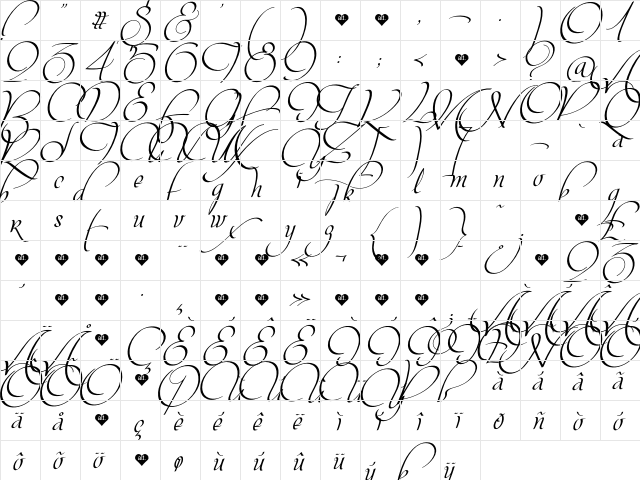
Mon Amour Script Alt Regular
| Foundry | Maximiliano R. Sproviero |
| Designer | Maximiliano R. Sproviero |
Design Context for Mon Amour Script Alt Typeface
Mon Amour Script Alt brings a calligraphic fluidity to the page — its connecting strokes and expressive curves give it an unmistakably human quality.